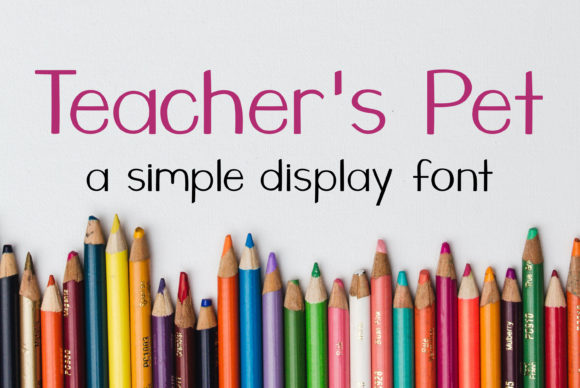
**Introducing Teacher's Pet Font: The Perfect Font for Your Creative Projects**
Step into a world of limitless creativity with our Teacher's Pet Font, meticulously crafted to transform your designs into masterpieces. This enchanting display font exudes an air of simplicity and elegance, adding a touch of charm to every letterform.
Imagine your designs blossoming into vibrant masterpieces, each word imbued with a personal touch that captivates the hearts of your audience. With Teacher's Pet Font, you'll discover a world of possibilities where your creativity knows no bounds.
Its clean lines and playful curves dance effortlessly across the page, creating a visual symphony that will leave an unforgettable impression. Whether you're crafting stunning logos, eye-catching social media posts, or heartwarming invitations, Teacher's Pet Font will elevate your designs to extraordinary heights.
So, dive into the realm of imagination and let Teacher's Pet Font guide you on an unforgettable journey of creativity. Unleash your inner artist and create designs that speak volumes, captivating your audience with their timeless appeal.